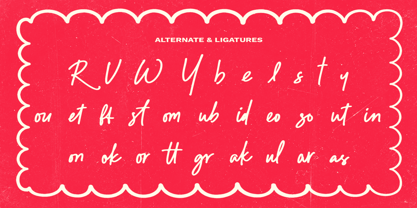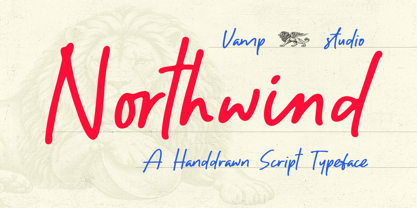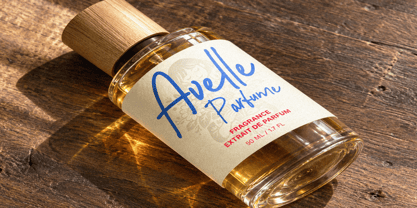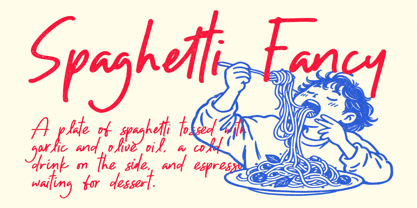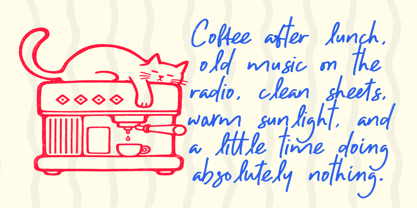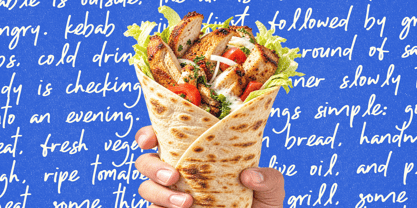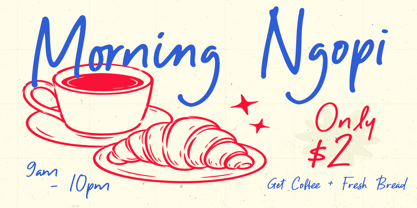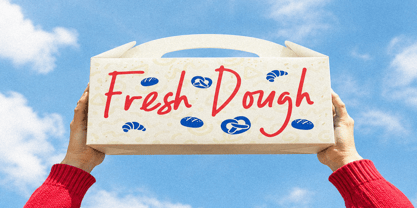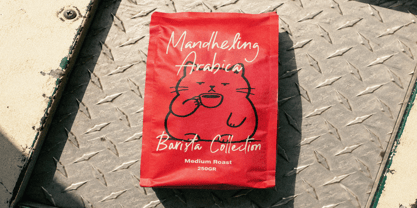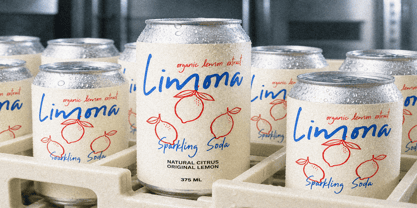
Northwind
Northwind is a tall, slender hand-drawn script typeface designed to bring an airy, personal handwritten touch to your creative projects. Crafted with narrow vertical proportions, delicate marker strokes, and smooth cursive connections, this font captures an effortless, authentic aesthetic.
Equipped with stylistic alternates and custom ligatures, Northwind enables you to build fluid, natural-looking text compositions.
It is exceptionally well-suited for organic food packaging, coffee bean labels, bakery branding, wedding invitations, product tags, social media quotes, and charming display headlines.
Key Features:
• Complete Uppercase & Lowercase character sets
• Numbers, Punctuation & Extended Symbol Set
• Custom Ligatures & Stylistic Alternates for natural flow
• Multilingual Support for global design compatibility
• Tall, slender handwritten script strokes with airy character shapes
• Ideal for organic packaging, coffee labels, wedding stationery, and display headlines